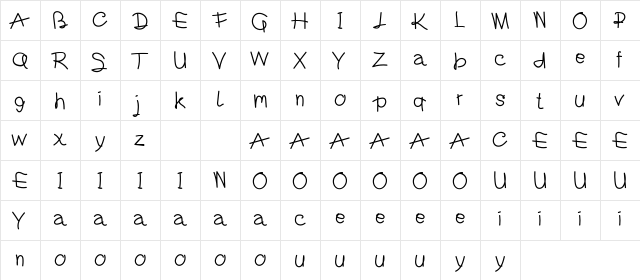
Parasit Regular
| Foundry | Idesain Creative |
| Designer | Mr. Audi prasetya |
Design Context for Parasit Typeface
Parasit is a composed and adaptable typeface that performs quietly and consistently across a wide range of design contexts.